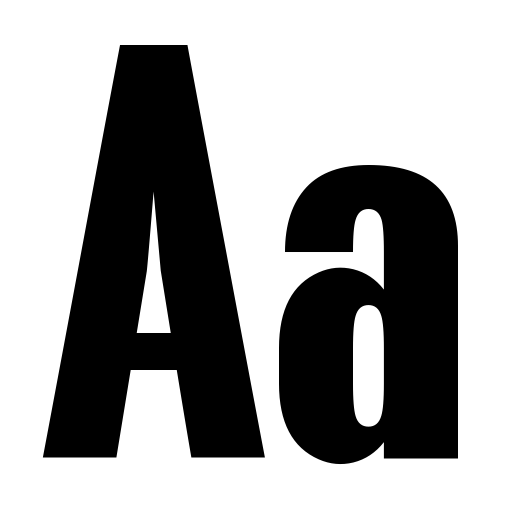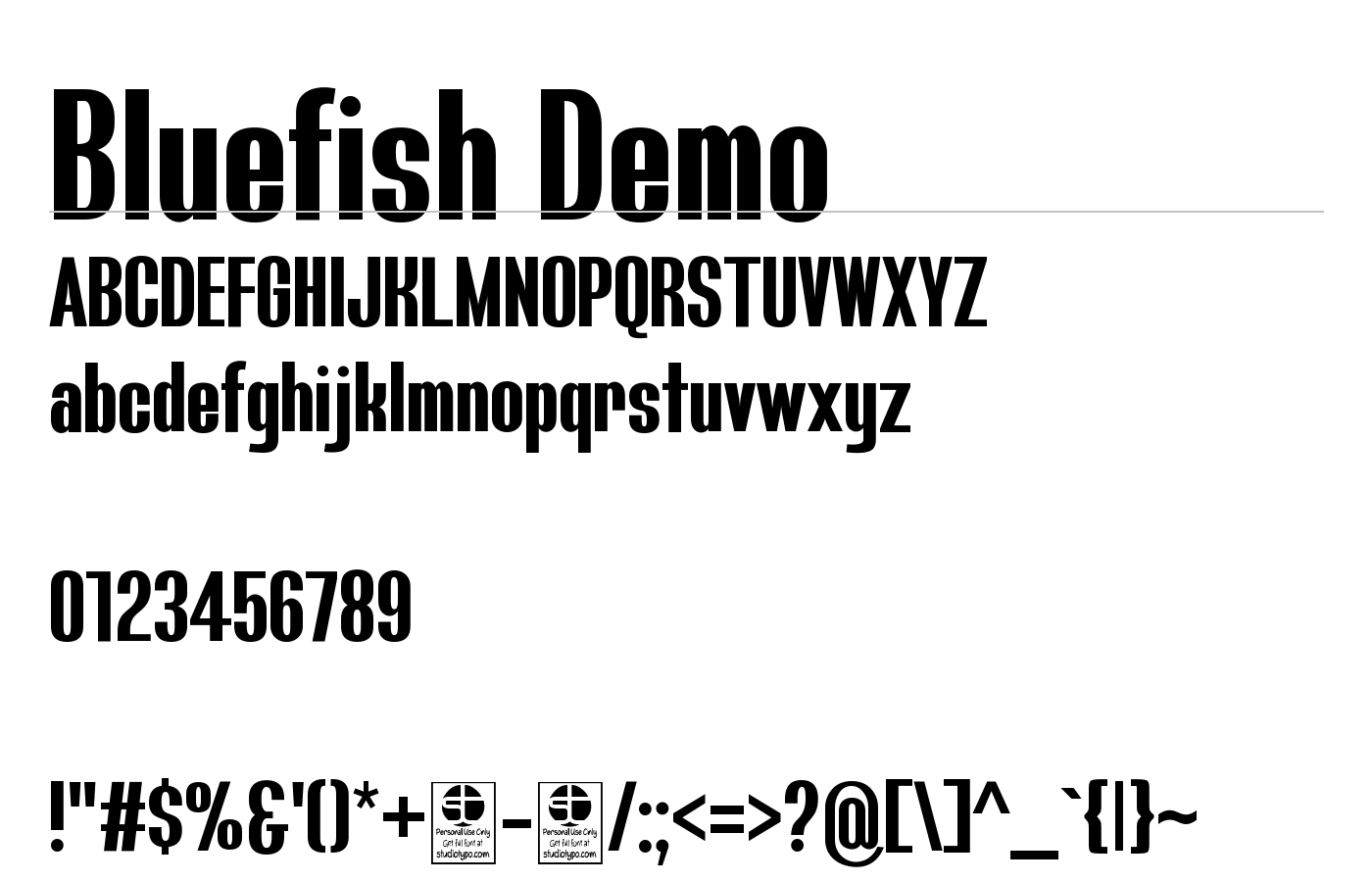
Bluefish Demo is a bold, condensed sans serif font with a strong vertical emphasis and high stroke contrast, giving it a powerful and modern feel. Its clean, sharp edges and clear letterforms make it ideal for impactful headlines, logos, and branding where attention and clarity are key. This font works well in designs seeking a bold, contemporary look that commands presence without sacrificing readability.
Bluefish Demo Font
About Bluefish Demo Font
| Font family | Bluefish Demo Font |
| Designer | Mehmet Abacı |